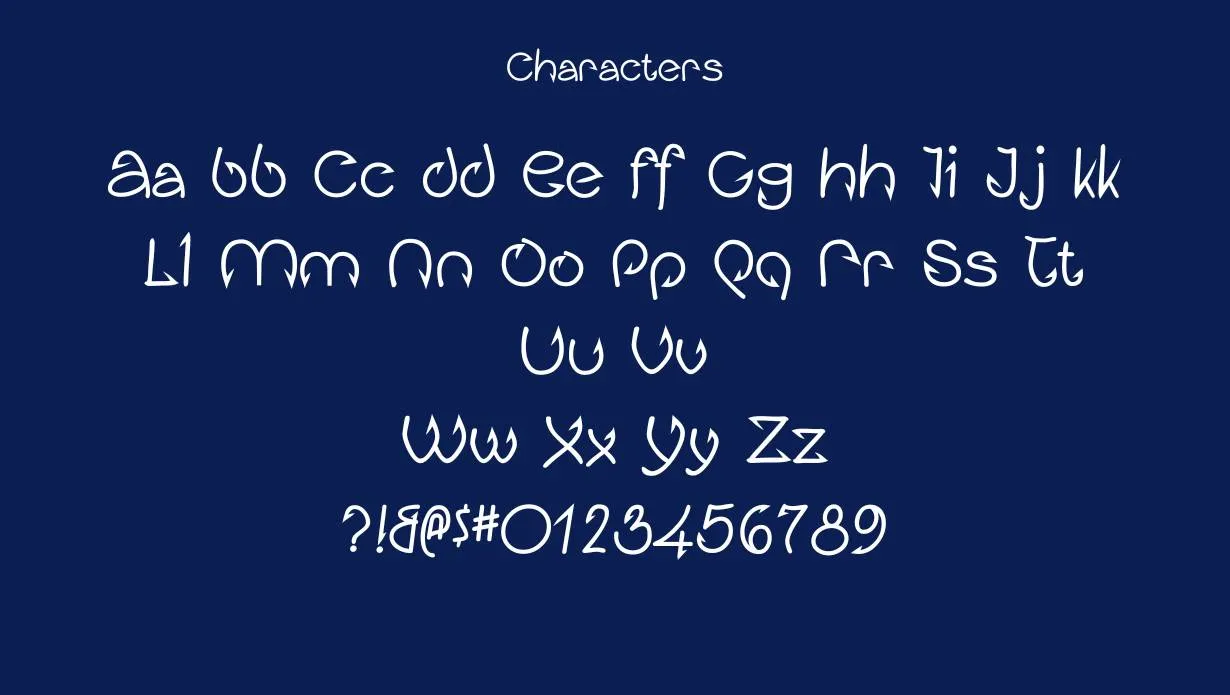
Fishhook Bold Font is a bold and expressive typeface with a rugged and hand-drawn appearance. It is commonly used in designs that seek a rustic and artisanal feel, such as product packaging, posters, or any project that benefits from a bold and dynamic script.
| Name | Fishhook Bold Font |
| Designer | Robert Schenk |